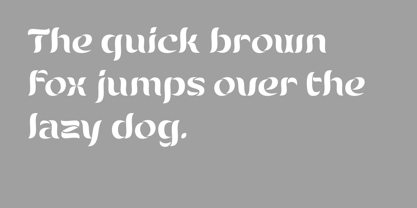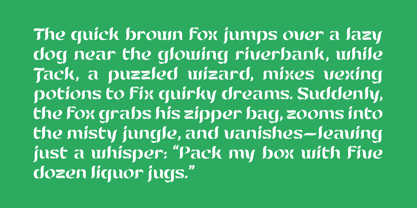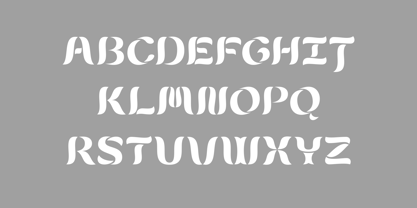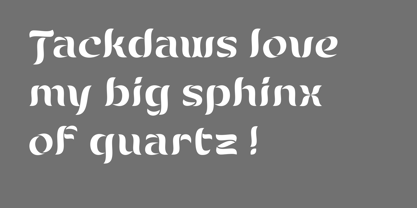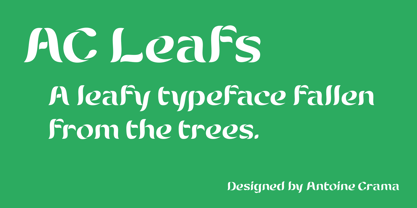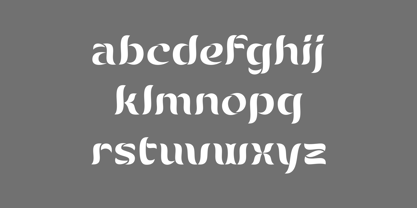
AC Leafs
por Antoine Crama
Rooted in nature. Designed to grow.
Inspired by the organic beauty of the forest, this typeface brings the shapes and rhythms of the natural world into a contemporary typographic language. Its flowing curves and distinctive details subtly echo leaves, branches, and the graceful movement of vegetation.
Designed to create a strong yet refined visual identity, the typeface combines organic forms with a sophisticated, expressive character. Each letter contributes to a fluid rhythm, giving words a natural sense of movement and allowing typography to become an integral part of the visual experience.
Its distinctive aesthetic makes it a versatile choice for branding, packaging, editorial design, beauty and wellness, botanical products, sustainable brands, hospitality, lifestyle projects, and creative identities looking for an authentic connection to nature.
More than a typeface, it is a visual expression of the forest — organic, elegant, and alive.